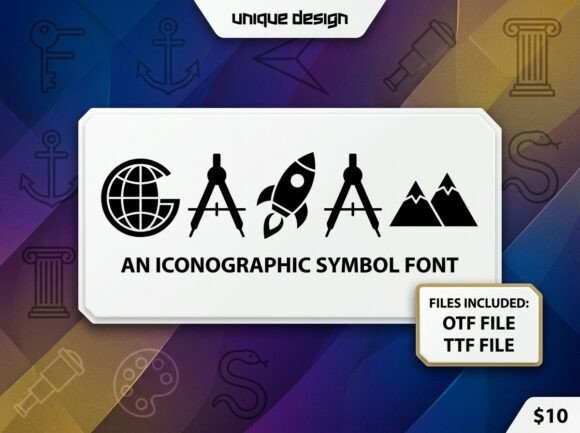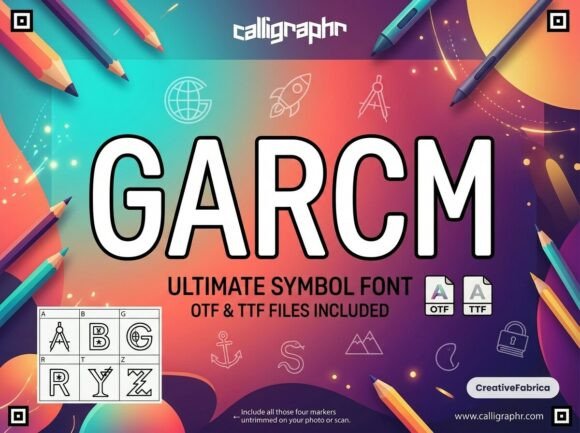
Introducing Garcm Font: The Ultimate Decorative Display Font
Are you tired of using the same old fonts for your designs? Look no further than Garcm Font, a stunning decorative display font that’s sure to turn heads. With its unique artistic elements and strong visual personality, this font is perfect for creators who want to break away from the ordinary and make a statement.
What Makes Garcm Font Special?
Garcm Font is a versatile decorative display font that’s designed to be the center of attention. Its unique artistic elements and strong visual personality make it perfect for a variety of design projects, from bold headlines and artistic logos to creative packaging. Whether you’re a graphic designer, artist, or crafter, this font is sure to elevate your work to the next level.
Key Features of Garcm Font
- Unique Artistic Elements: Garcm Font features unique artistic elements that set it apart from other fonts. Each letter is carefully crafted to make a statement and add a touch of elegance to your designs.
- Strong Visual Personality: This font has a strong visual personality that’s sure to grab attention. Its bold and eye-catching design makes it perfect for headlines, logos, and other design elements that need to stand out.
- Versatile: Garcm Font is versatile enough for a variety of design projects, from bold headlines and artistic logos to creative packaging.
- Professional and Polished Finish: Despite its bold and artistic design, Garcm Font maintains a professional and polished finish that’s perfect for high-end designs.
IMPORTANT NOTE BEFORE PURCHASE: Garcm Font is an ALL-CAPS (Uppercase Only) display typeface. It does not include lowercase letters. It is specifically designed for high-impact headlines, logos, and decorative initials where every letter is a work of art.
Why Choose Garcm Font?
There are many reasons why you should choose Garcm Font for your design projects. Here are just a few:
- Stand Out from the Crowd: With its unique artistic elements and strong visual personality, Garcm Font is sure to help your designs stand out from the crowd.
- Elegant and Sophisticated: This font adds a touch of elegance and sophistication to any design project.
- Perfect for Creative Projects: Garcm Font is perfect for creative projects, such as artistic logos, bold headlines, and creative packaging.
How to Use Garcm Font
- Use it for Headlines: Garcm Font is perfect for bold headlines and titles.
- Create Artistic Logos: This font is great for creating artistic logos and branding elements.
- Add a Touch of Elegance: Use Garcm Font to add a touch of elegance and sophistication to your designs.
Garcm Font is a stunning decorative display font that’s perfect for creators who want to break away from the ordinary. With its unique artistic elements and strong visual personality, this font is sure to elevate your designs to the next level. Whether you’re a graphic designer, artist, or crafter, Garcm Font is a great choice for any design project.